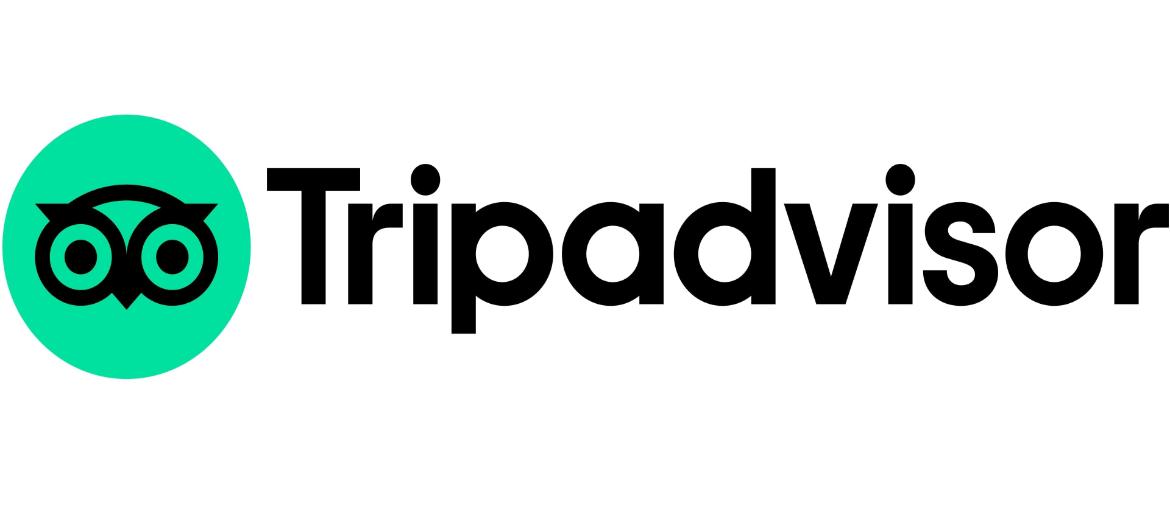
TripAdvisor Font
What Font Does TripAdvisor Use?
The TripAdvisor Font is Trip Sans, the official typeface used in TripAdvisor’s latest logo and brand identity. It is a modern sans-serif font with rounded shapes, friendly curves, and excellent readability, giving the TripAdvisor wordmark a welcoming, approachable, and contemporary look. The clean yet playful design reflects the brand’s focus on travel, discovery, and user-generated experiences.
The brand’s visual identity reflects its mission of helping people explore the world with confidence. The friendly owl logo and clean, modern typography reinforce TripAdvisor’s image as a reliable and easy-to-use guide for travelers everywhere.